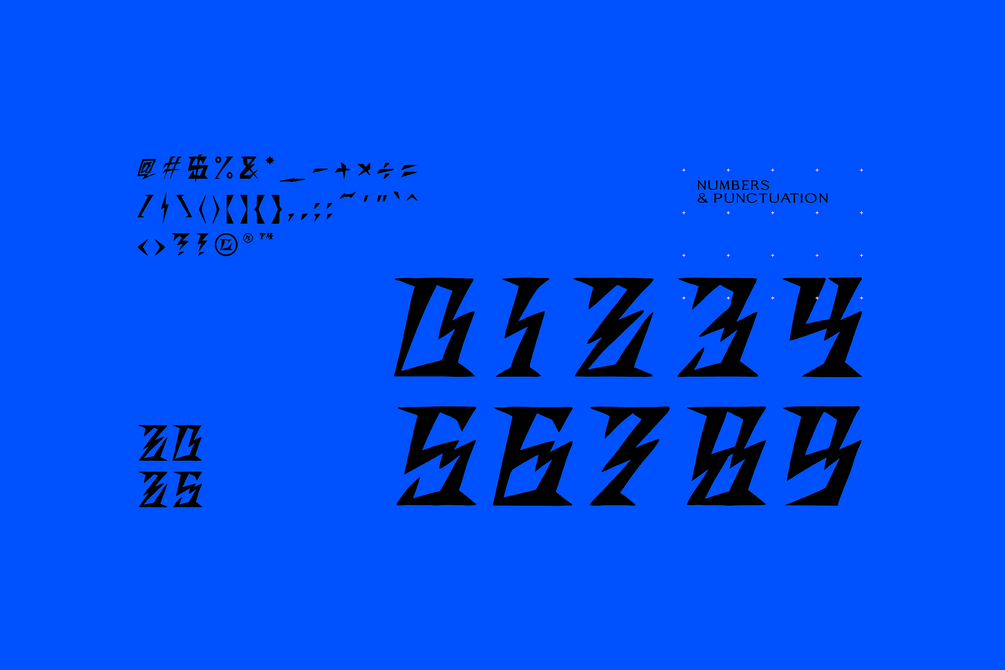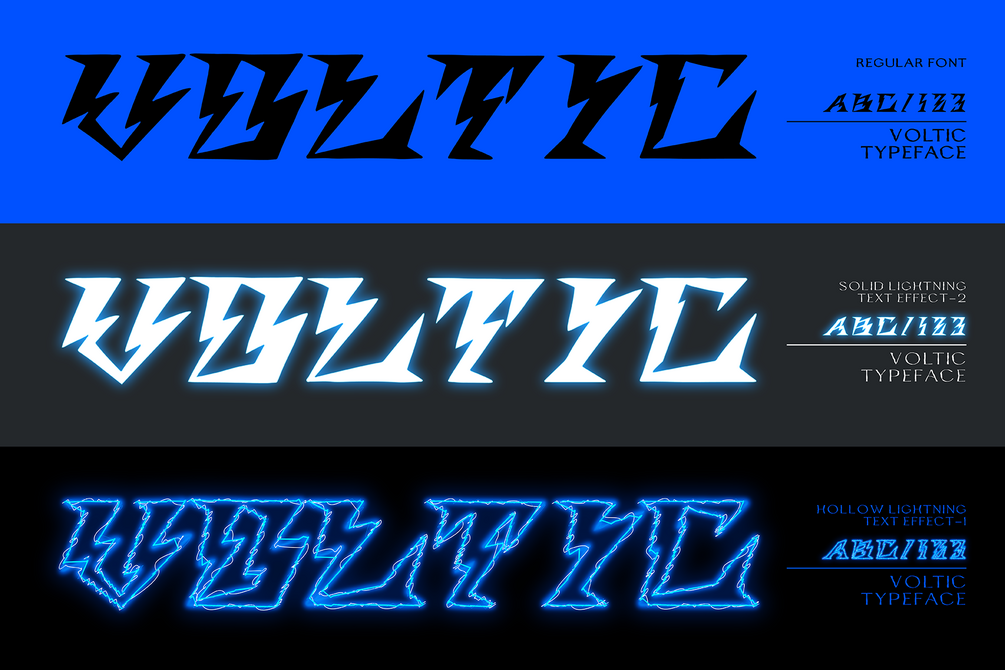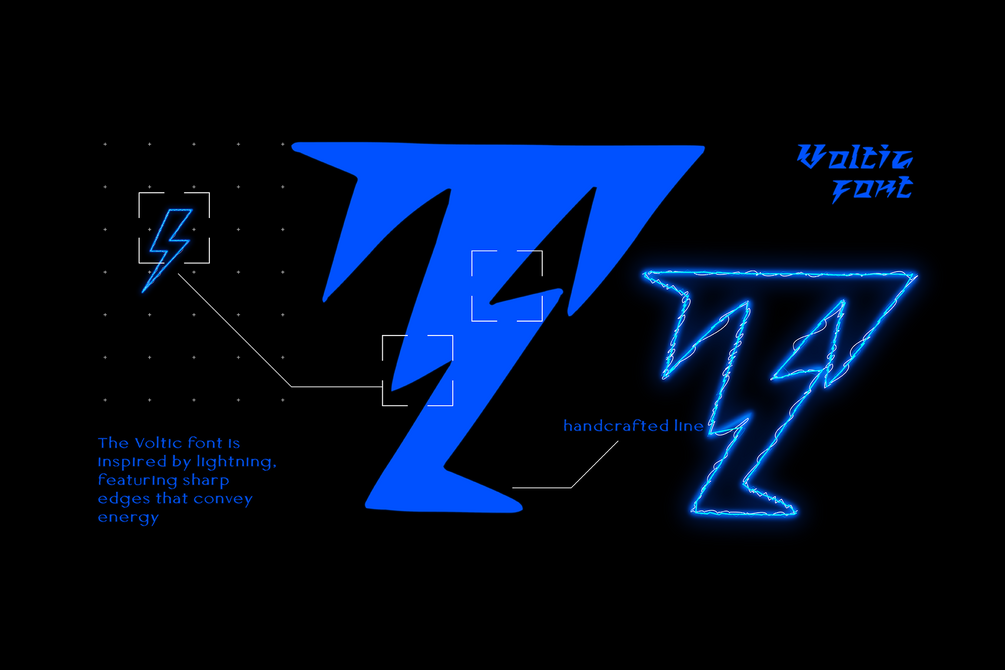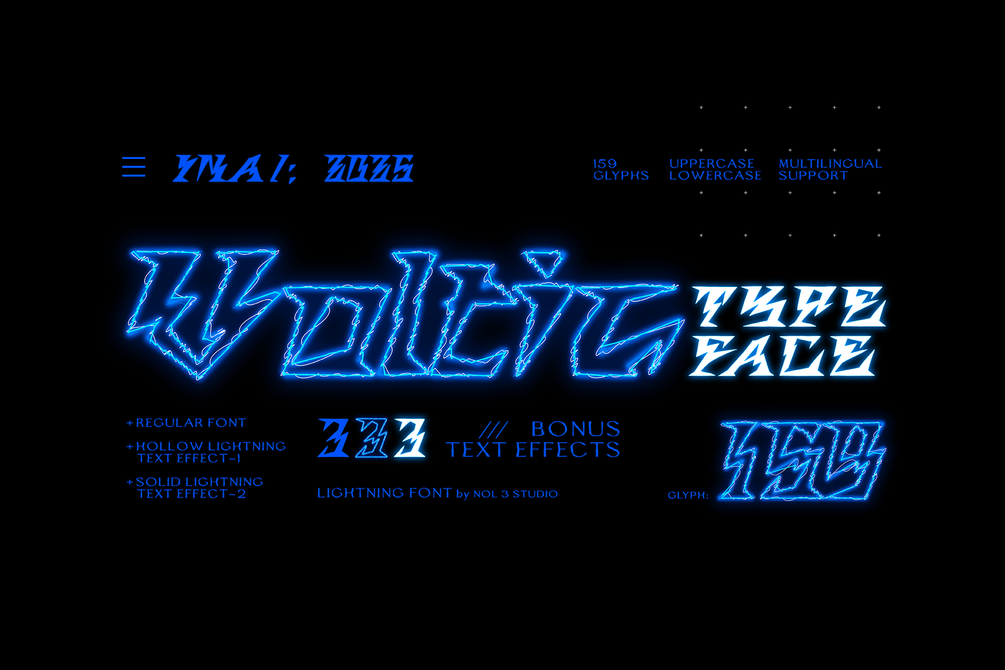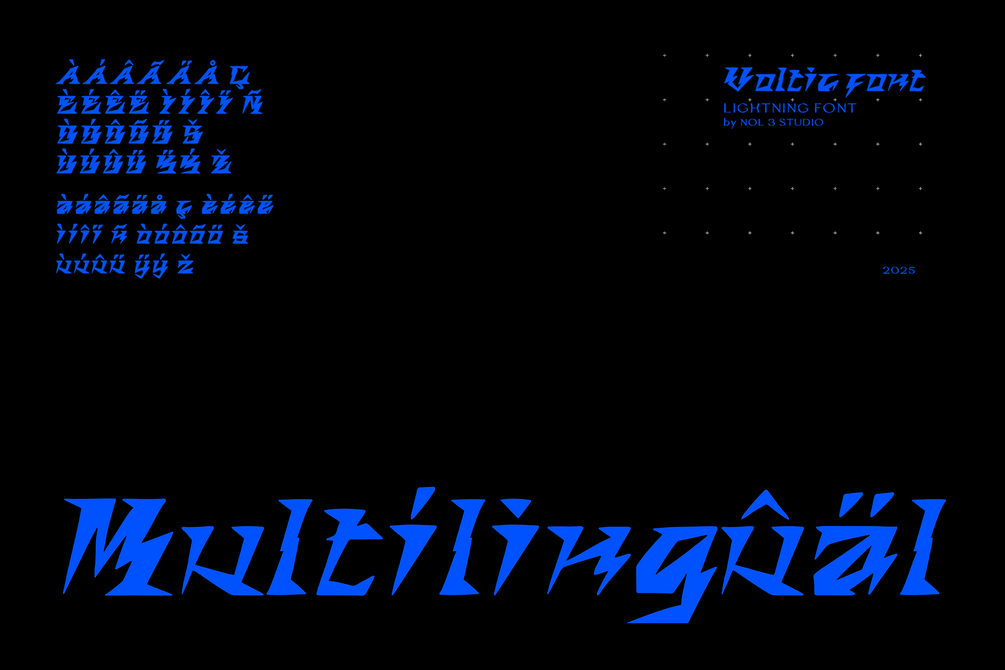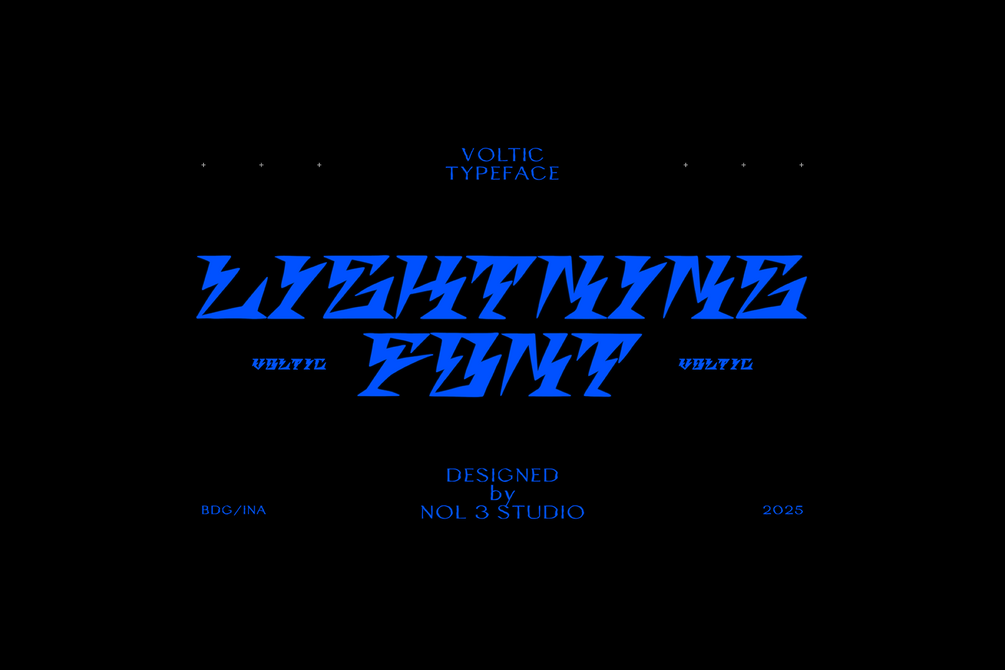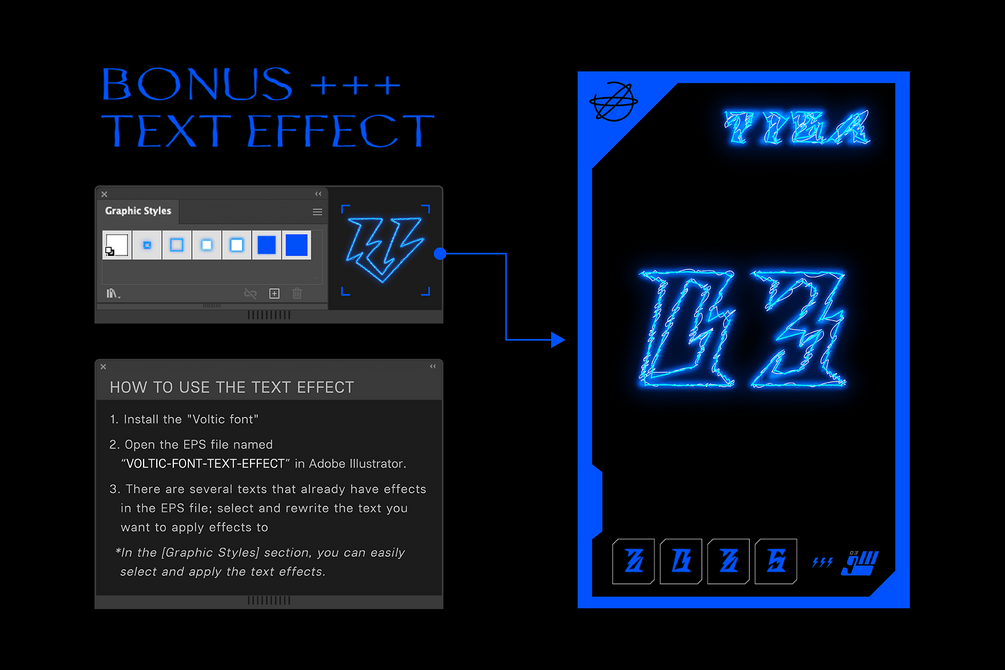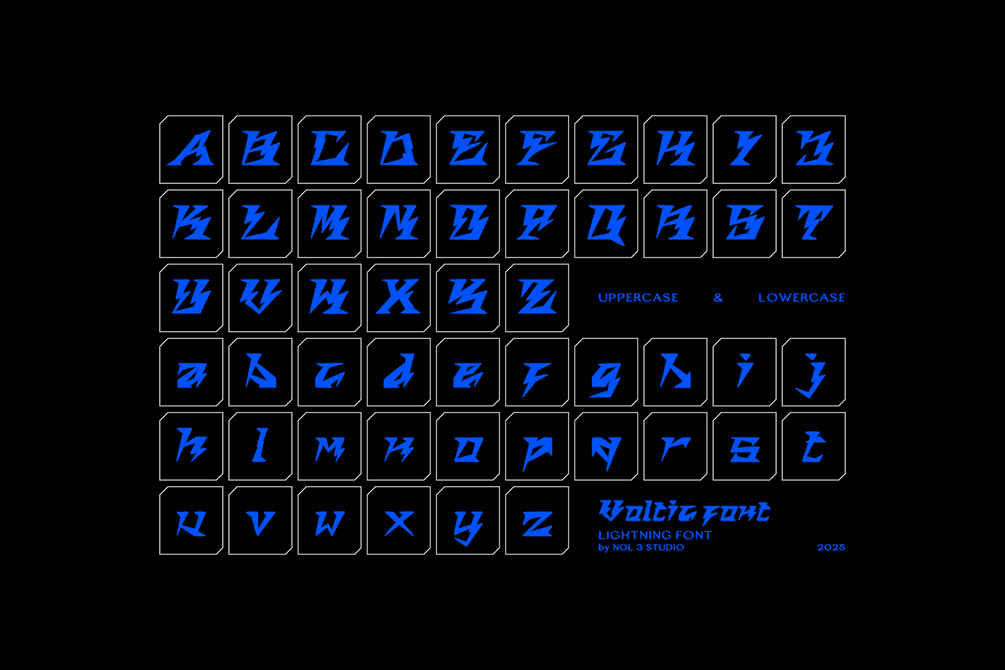
VOLTIC | Lightning Font (Bonus Text Effect)
The Voltic font is inspired by lightning, featuring sharp edges that convey energy. Accompanied by easy-to-use bonus text effects, this font is ideal for experimental designs that feature lightning elements.
Key Features
• The Font Contains 159 Glyphs
• Uppercase & Lowercase
• Numbers & Punctuation
• Multilingual Support
Bonus